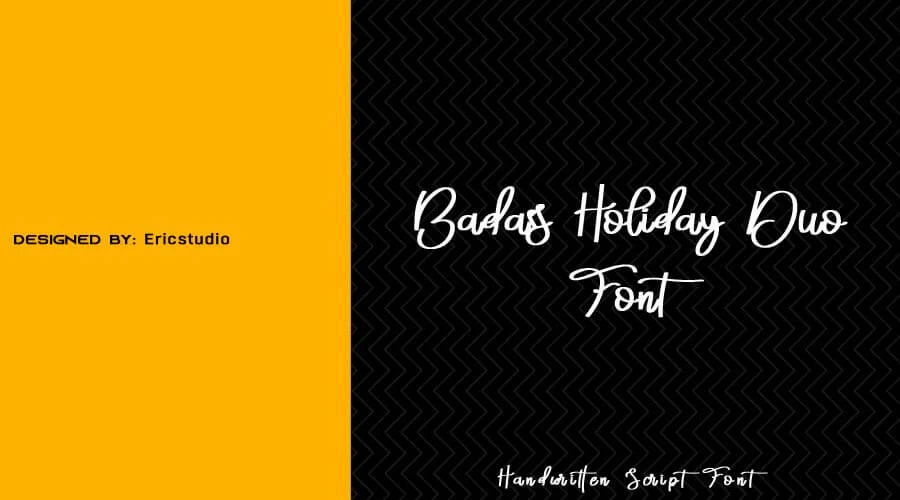
Badass Holliday Duo Font
Badass Holliday Duo Font is a Handwritten, Script typeface font designed by Edricstudio. It’s a duo font: Handwriting + Sans display. This font is very user-friendly with multi-language support. The badass holiday is a new modern decorative font family with a script and sans handmade display font.
The beautifully designed Badass Holiday Duo Font is quite appealing for any kind of design platform. The characters for both scripts feature a construction style that tends toward the monolinear.
• Designing: This font is useful for designing. Badass Holiday Duo will work great in brochures, banners, posters, book covers, high fashion, greeting cards, and many more.
• Logos: You can design your logos with it.
• Websites: I have seen various websites use this font.
• YouTube: YouTubers can also use this font for their thumbnail and channel art.
Is there any font similar to Badass Holliday Duo Font in Google Fonts?
Ans: Yellowtail is mostly similar to Badass Holiday Duo in google fonts.